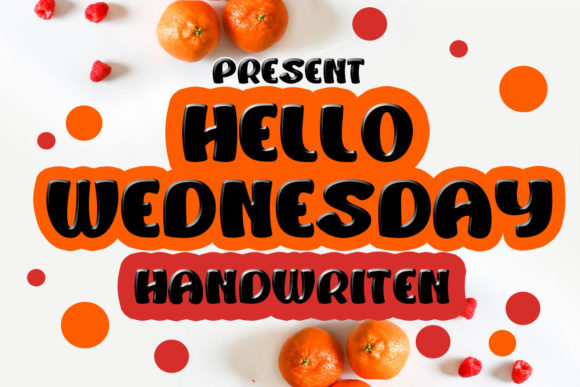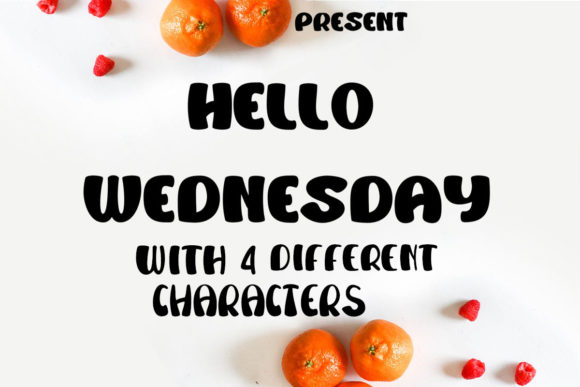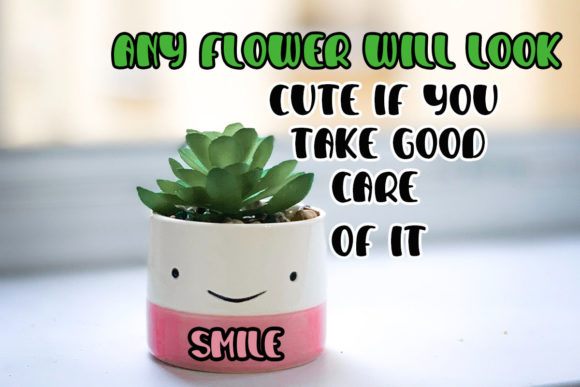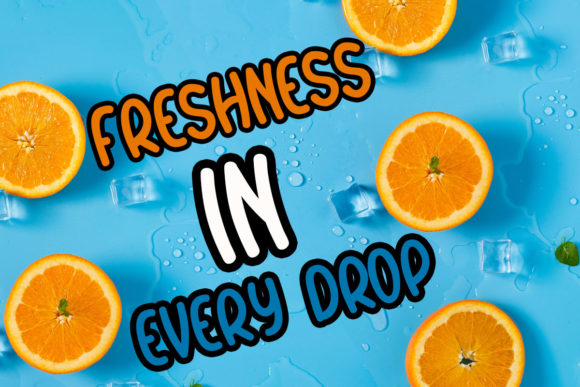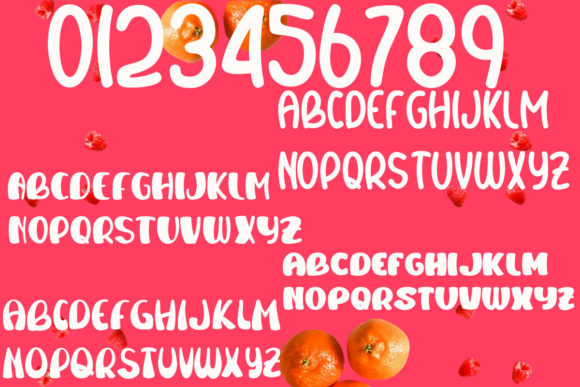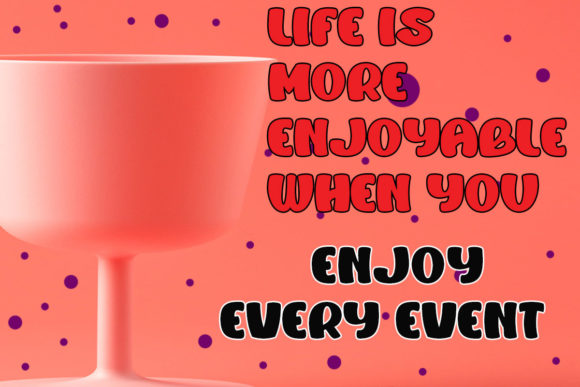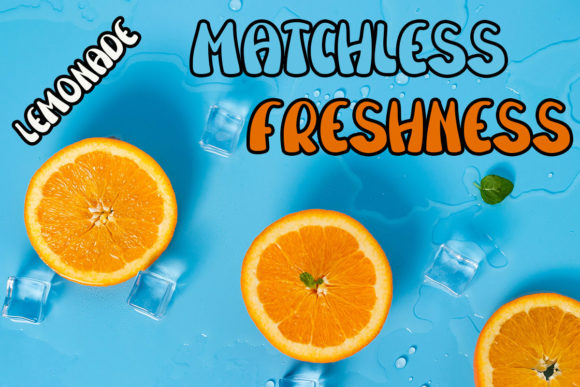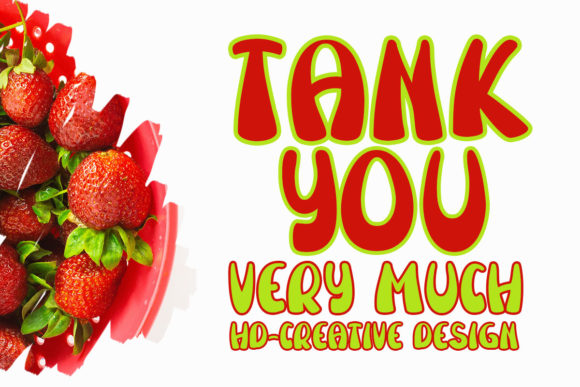
Hello Wednesday Font
About Hello Wednesday Font
Hello Wednesday is a charming and playful handwritten font that adds a touch of sweetness and joy to your designs. With its dainty and romantic style, this font is perfect for creating wedding invitations, greeting cards, and any other design that requires a personalized and romantic touch.
The unique feature of Hello Wednesday lies in its playful and whimsical letterforms. Each character is crafted with care, showcasing a delightful combination of curves, loops, and swashes. The flowing nature of the strokes and the gentle bounce in the letterforms create a sense of liveliness and add a touch of magic to your designs.
One of the key strengths of Hello Wednesday is its versatility. It can be used in a wide range of design projects, from wedding stationery and love-themed cards to branding, social media graphics, and more. Whether you’re creating a romantic quote for Instagram or designing a logo for a wedding planner, Hello Wednesday adds a personalized and enchanting element to your visuals.
When used in wedding invitations and cards, Hello Wednesday captures the essence of romance and creates a warm and intimate atmosphere. Its handwritten style adds a personal and heartfelt touch, making your invitations feel special and unique. The beautiful swashes and glyphs enhance the overall elegance of your designs, allowing you to create stunning and memorable pieces.
In addition to its romantic applications, Hello Wednesday can also be used to create playful and whimsical designs. Its lively and friendly nature makes it suitable for children’s books, playful branding, or any project that aims to evoke a sense of joy and wonder. Hello Wednesday brings a touch of innocence and fun to your designs, making them truly captivating.
In summary, Hello Wednesday is a sweet and playful handwritten font that adds a romantic and personalized touch to your designs. Its versatile nature makes it suitable for a wide range of projects, from wedding invitations to playful branding. Embrace the charm of Hello Wednesday and let it bring a touch of joy and magic to your creative endeavors.